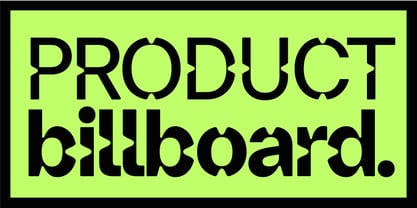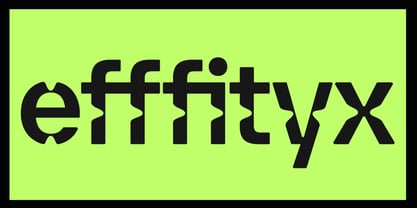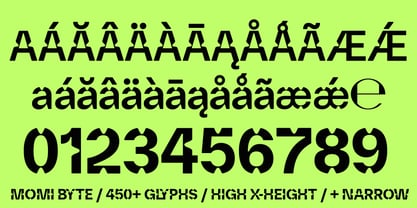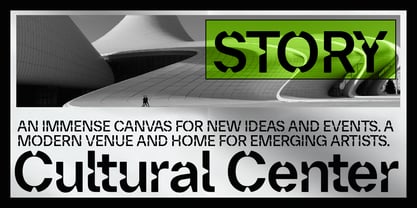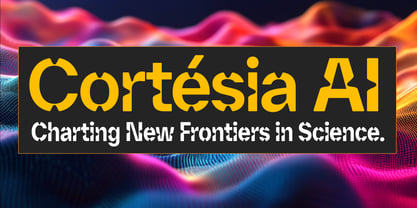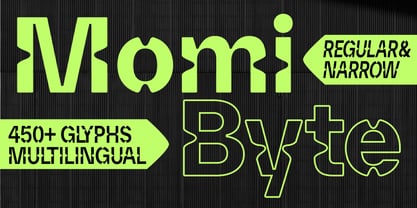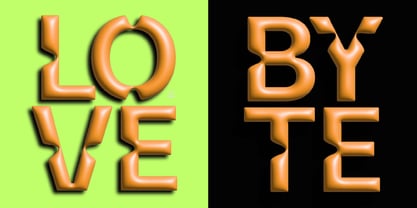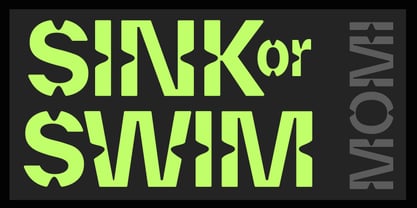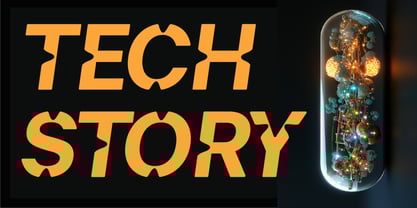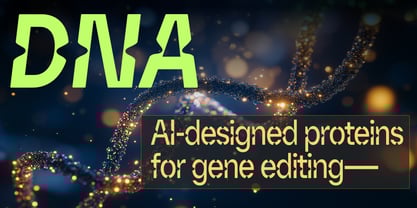
Momi Byte
by Matt Chansky
The Momi Byte Font Family was designed by Matt Chansky and published by Matt Chansky. Momi Byte contains 12 styles and family package options.
Momi Byte is a unique typeface that seamlessly blends the precision of digital technology with the natural curves of organic design. The font features clean, geometric shapes balanced with smooth organic bytes, creating a harmony between the mechanical and the human. Perfect for branding, futuristic designs, research and technology. Momi Byte is equally at home on cutting-edge websites or multi-channel marketing campaigns. With its versatile weight options and adaptable character set, Momi Byte invites innovation while staying grounded in a natural aesthetic.
About Matt Chansky
Digital-first font foundry, specializing in universal, high x-height fonts with a Swiss flavor. Allowing designers to literally and figuratively level up their creative with finely crafted and versatile font families. Typography is a visual art and when used in branding – it has the ability to speak to and shape an audience. That is the foundry's mission, to empower visual communicators with elite memorable fonts to help distinguish brands. When typography is the language used to craft a brand tone, speak to me in fonts. My love of typography inspired me to begin making fonts, but it’s a passion for visual design that sustains me. As a brand lead, I've received nearly 40 individual awards and accolades since 2009, appearing in several design books and magazines. I've worked with brand name clients across a wide variety of business segments. With two decades of experience on the global advertising scene, I know what is needed from a font or a logotype. Qualities like memorability, readability on small screens, clean lines, and ample glyph options are hallmarks of my font families. Long live design, long live typography.